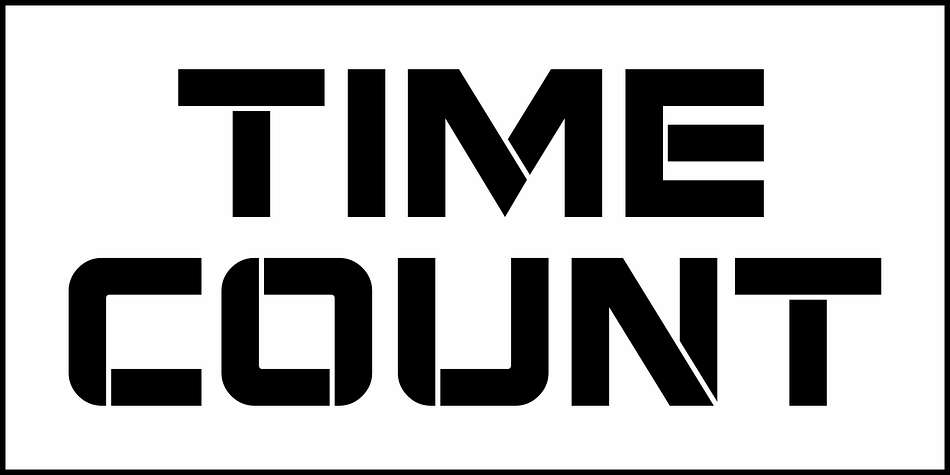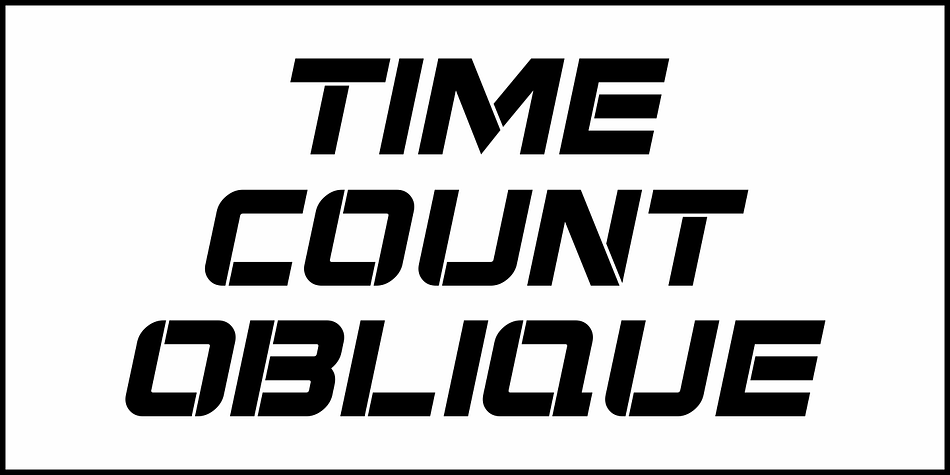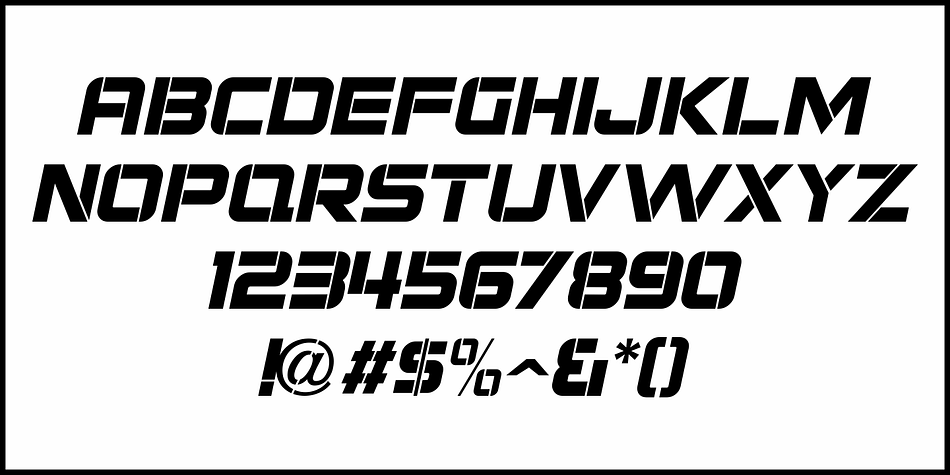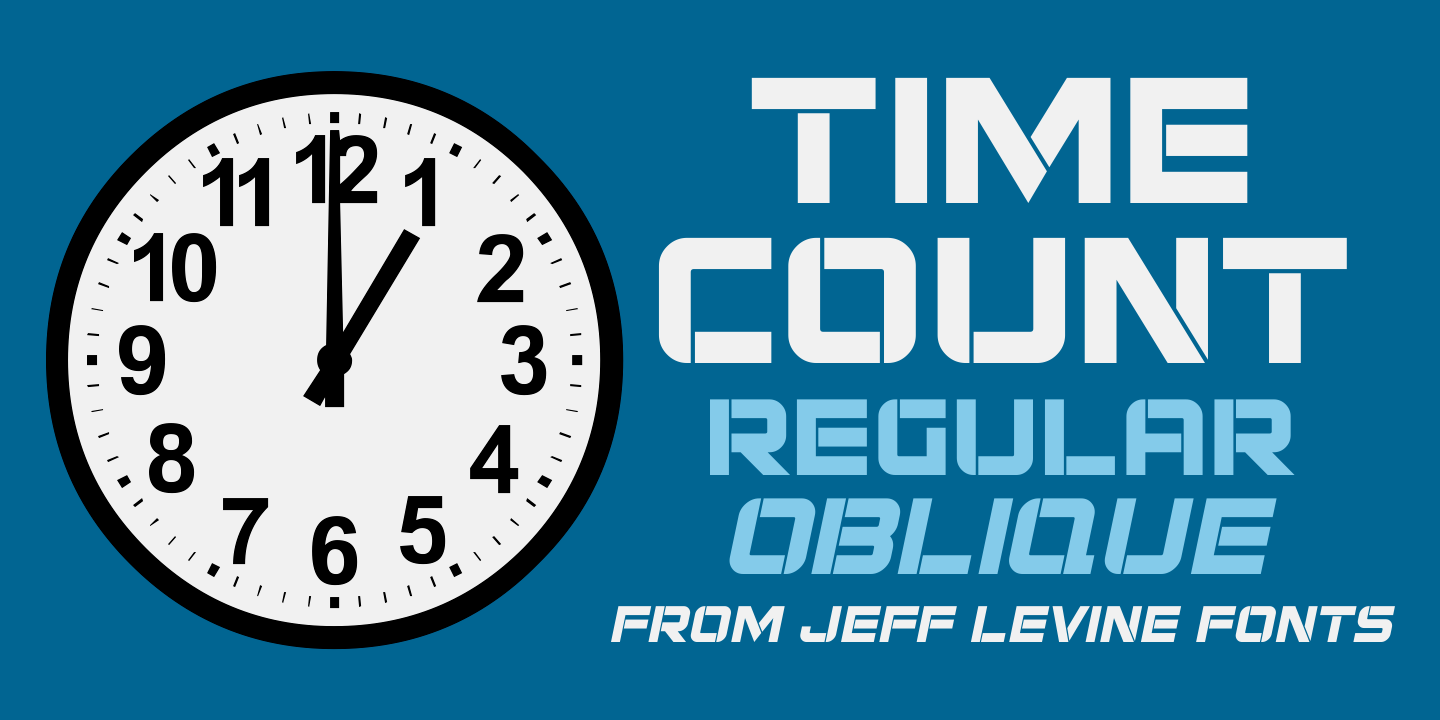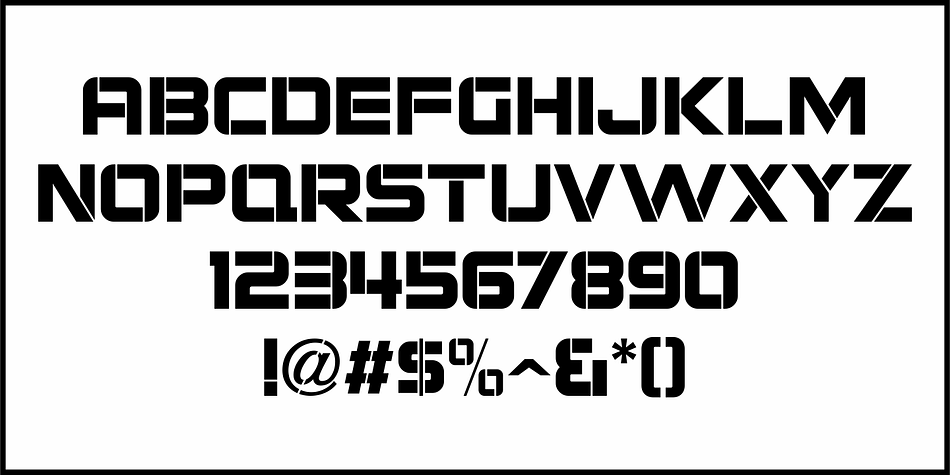
TIME COUNT JNL
Designed by Jeff Levine, Time Count JNL is a display sans and stencil font family. This typeface has two styles and was published by Jeff Levine Fonts.
On the 1966 movie poster for “Seconds”, Saul Bass designed a hand lettered title utilizing a ‘futuristic’ stencil style.
This inspired the digital typeface Time Count JNL, which is available in both regular and oblique versions.